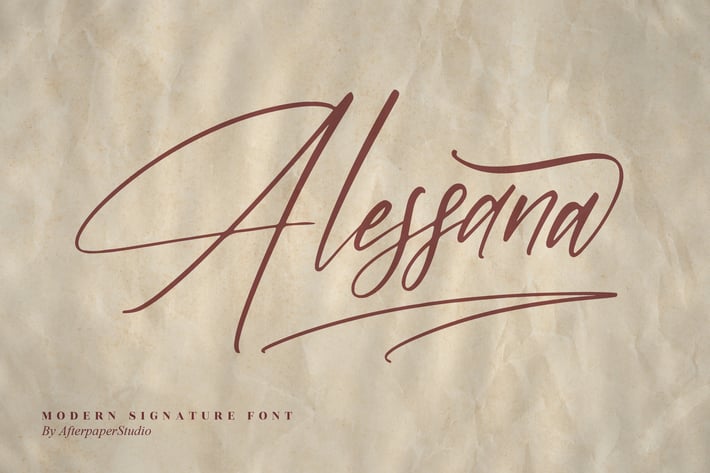
Alessana Modern Signature Font
Alessana is a modern signature script font crafted with stylish curves and dramatic swashes. Its elegant strokes and handwritten rhythm make it the perfect choice for fashion branding, photography watermarks, wedding designs, and Instagram quotes.
With high contrast lines and a luxurious feel, Alessana balances personality with professionalism—ideal for both personal and commercial design needs.
+ Uppercase & lowercase
+ Ligatures, alternates, and swashes
+ Multilingual support
Great for:
+ Fashion Logos
+ Signature Branding
+ Wedding Invites
+ Social Posts
+ Editorial Titles
Let Alessana elevate your design with its confident, elegant signature charm.